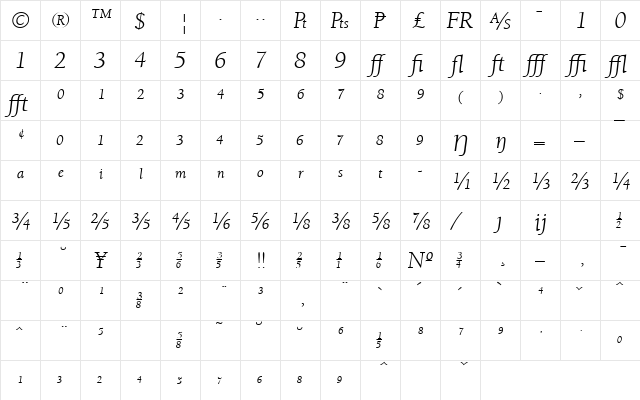
UniversityOldExp Italic
Design Context for UniversityOldExp Typeface
UniversityOldExp takes a measured approach to typography — its balanced proportions and neutral character make it a reliable workhorse for both digital and print work. The slanted form adds forward momentum and visual energy.